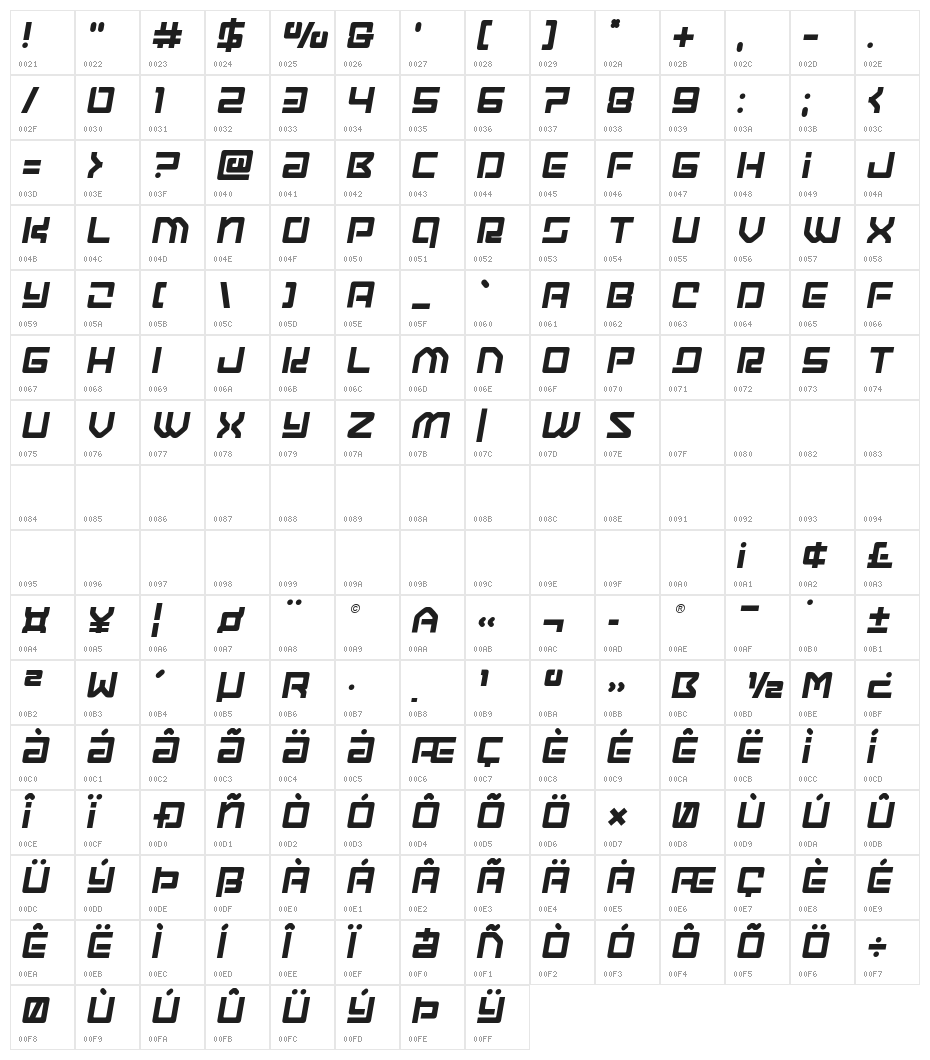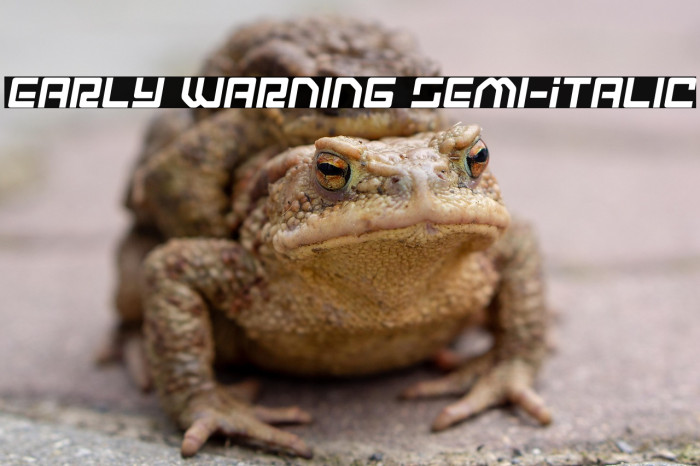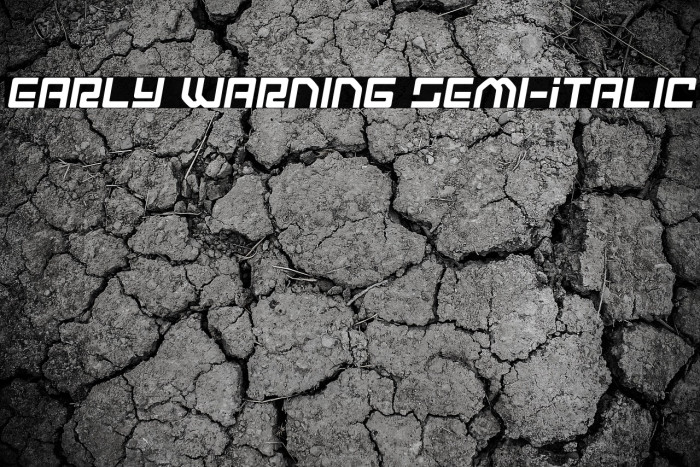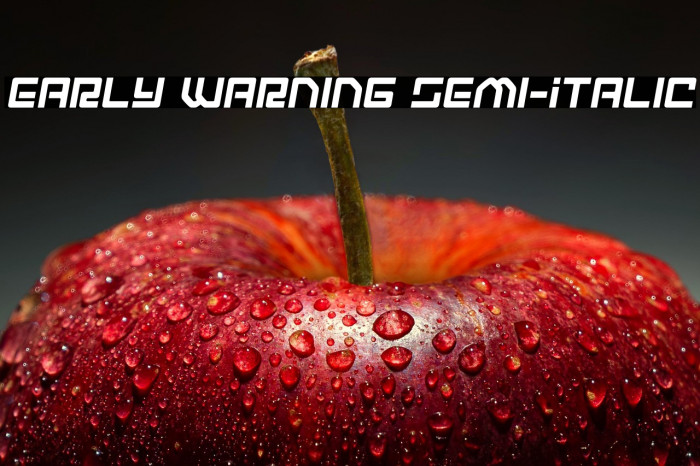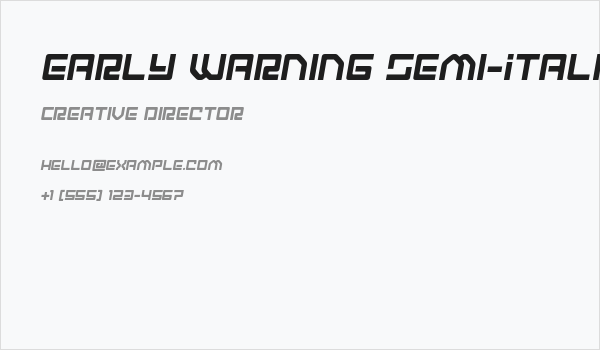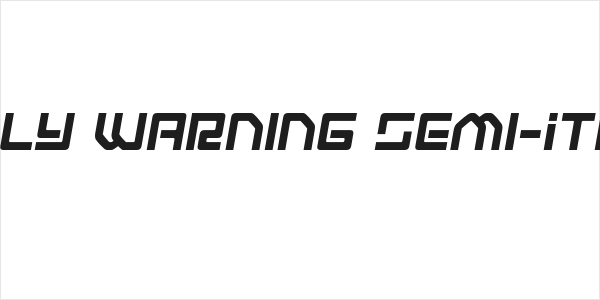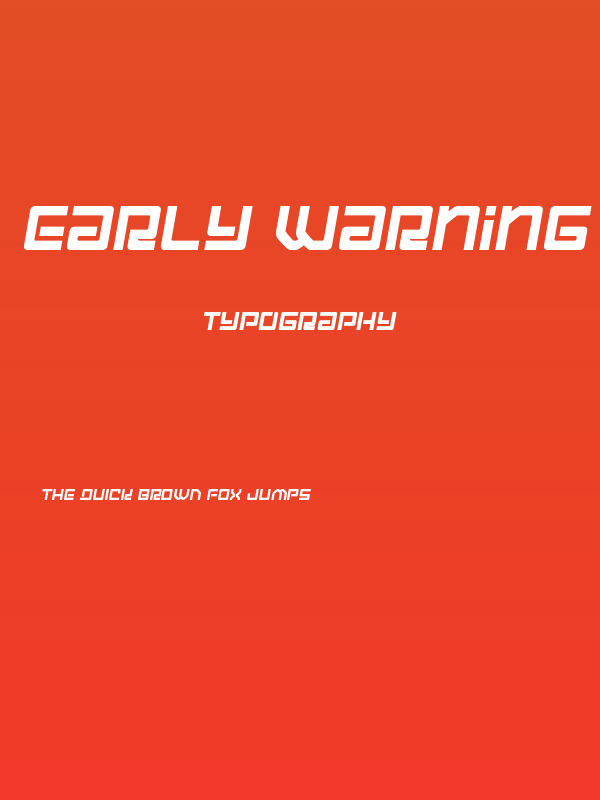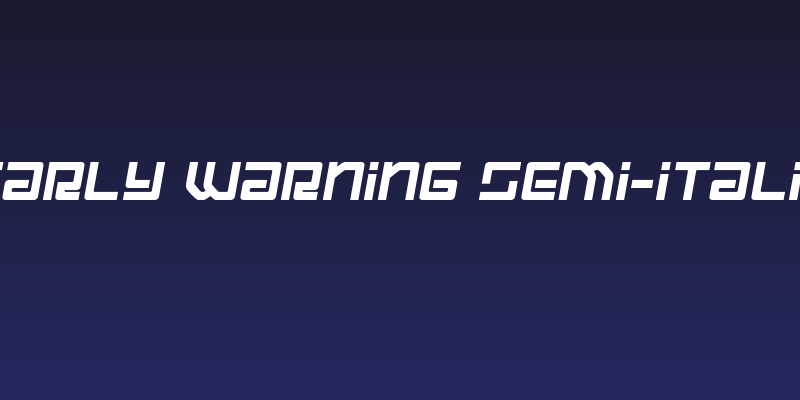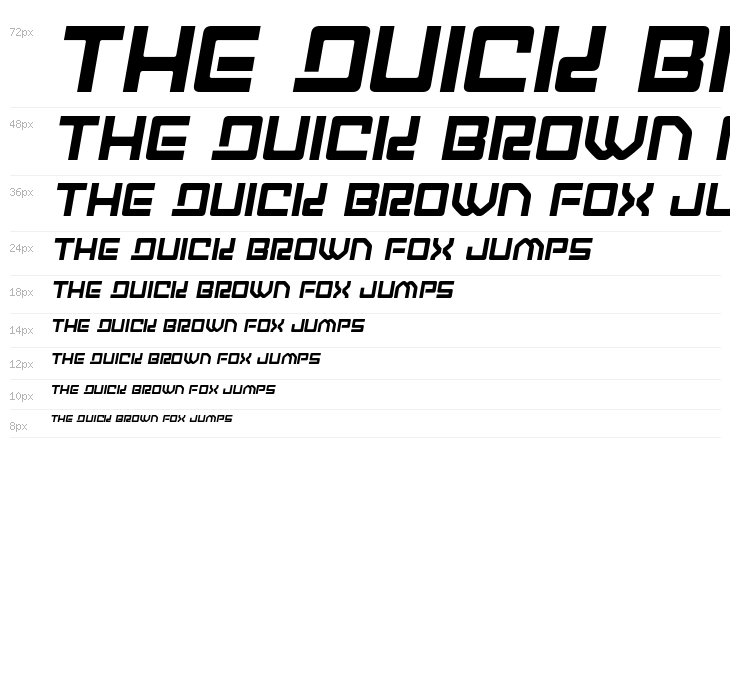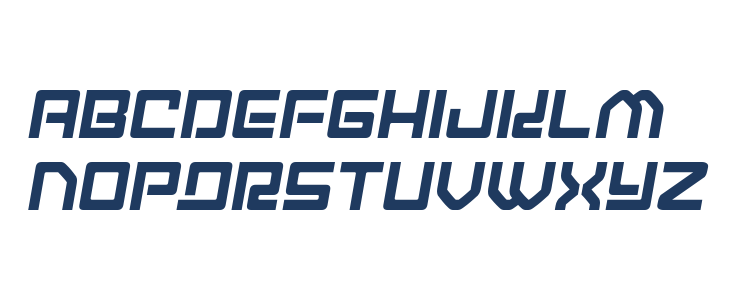
Early Warning Semi-Italic Font
Early Warning Semi-Italic Description
This font features a futuristic and angular design, characterized by its semi-italic slant and bold, geometric shapes. The letters are constructed with sharp edges and a consistent stroke width, giving it a modern and dynamic appearance. The uppercase and lowercase letters maintain a uniform style, with a slight forward tilt that adds a sense of motion. The numerals and special characters follow the same design principles, ensuring a cohesive look across all glyphs. This font is ideal for projects that require a bold and contemporary aesthetic.
Overall StyleFuturistic
Proposed ProjectsIdeal for technology branding, sci-fi posters, video game titles, and modern advertising.